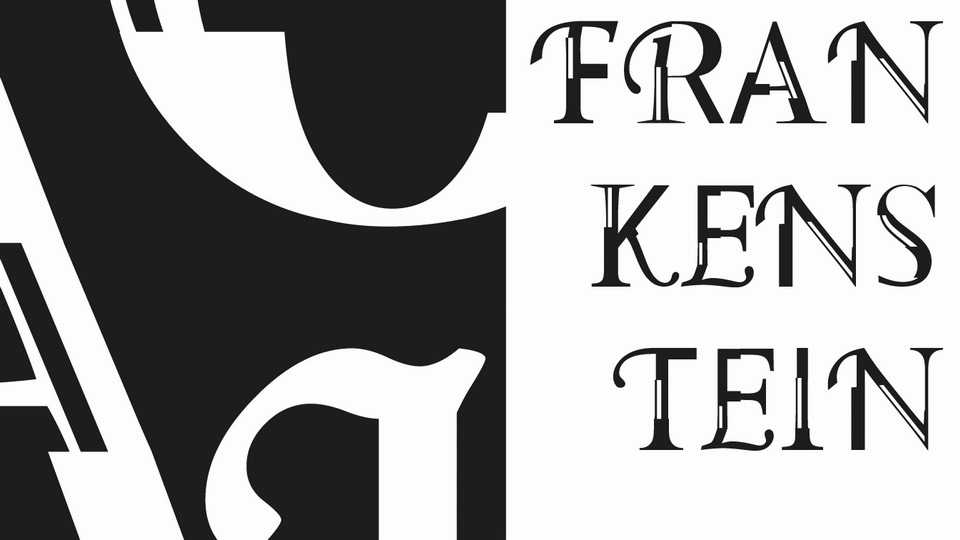
Download Frankenstein font, a unique display typeface mixed of 4 different font types, serif, sans serif, script and decorative. Frankenstein’s letters made up of different parts from other typefaces.
Designer: Pol Solà